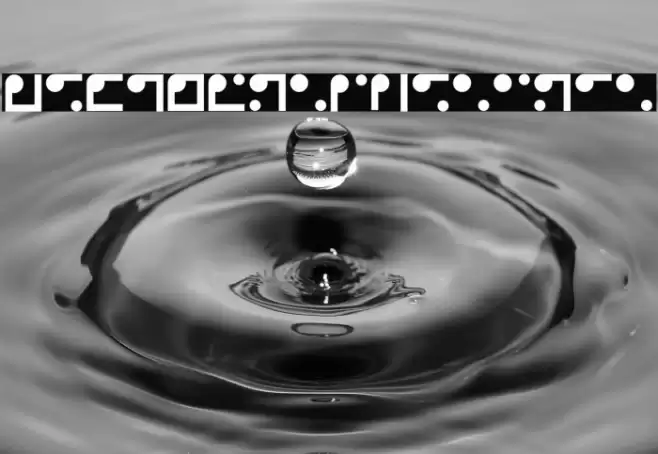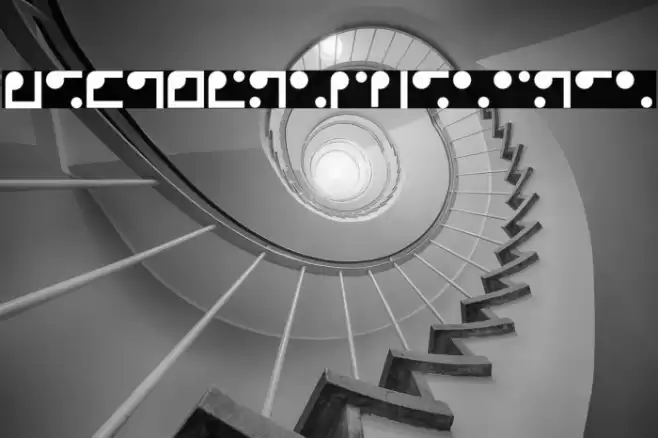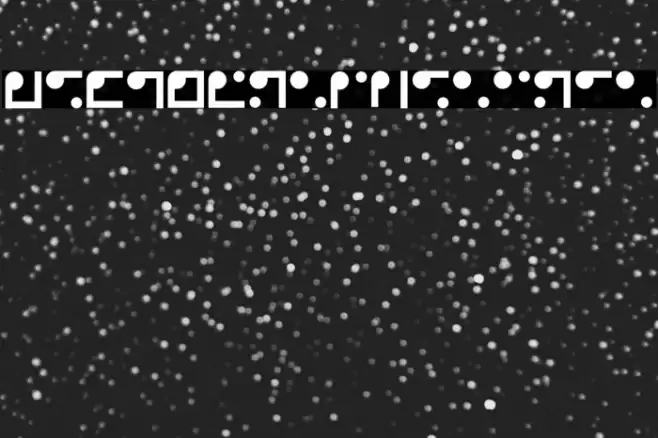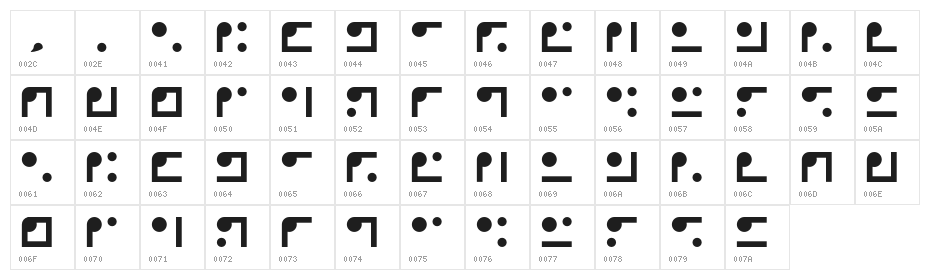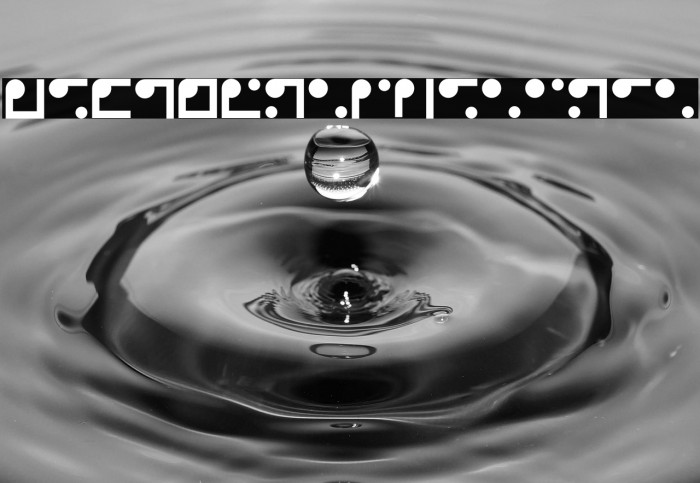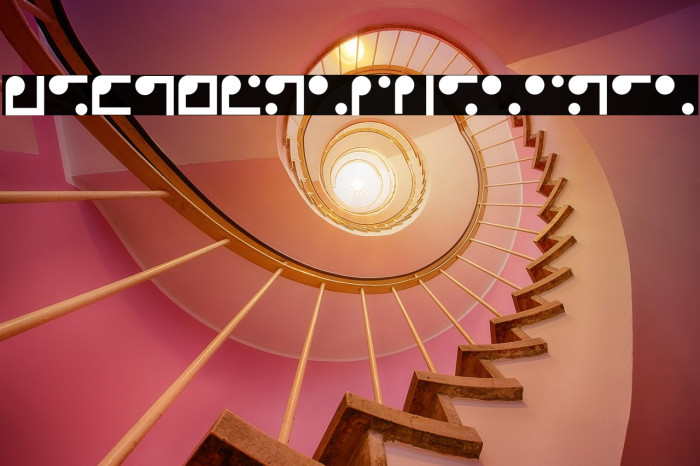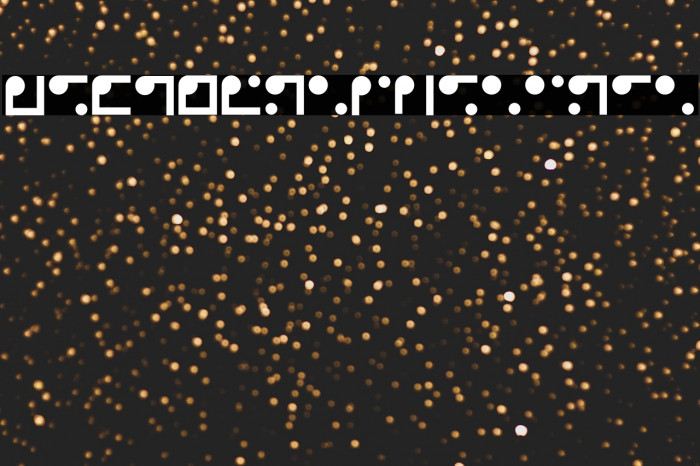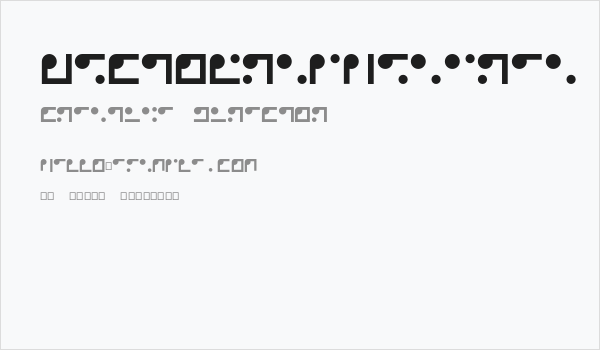
Nyctographyaurea Font
Nyctographyaurea Description
This font features a highly decorative and abstract design, characterized by a series of geometric shapes and dots that form each character. The style is reminiscent of a futuristic or alien script, with a unique and artistic flair. The characters are composed of bold lines and circular elements, creating a visually striking appearance. The font lacks traditional letterforms, opting instead for a symbolic representation that challenges conventional readability. This makes it ideal for creative projects where a sense of mystery or otherworldliness is desired.
A decorative, abstract font with geometric shapes and dots, evoking a futuristic or alien aesthetic from Dingbats fonts.
- Proposed Projects: Ideal for sci-fi themed designs, artistic posters, video game graphics, or any project requiring a unique and mysterious typeface.
- Contrast: High
- Overall Style: Futuristic, Abstract
- Use Case: Logos, Artistic posters, Sci-fi themes